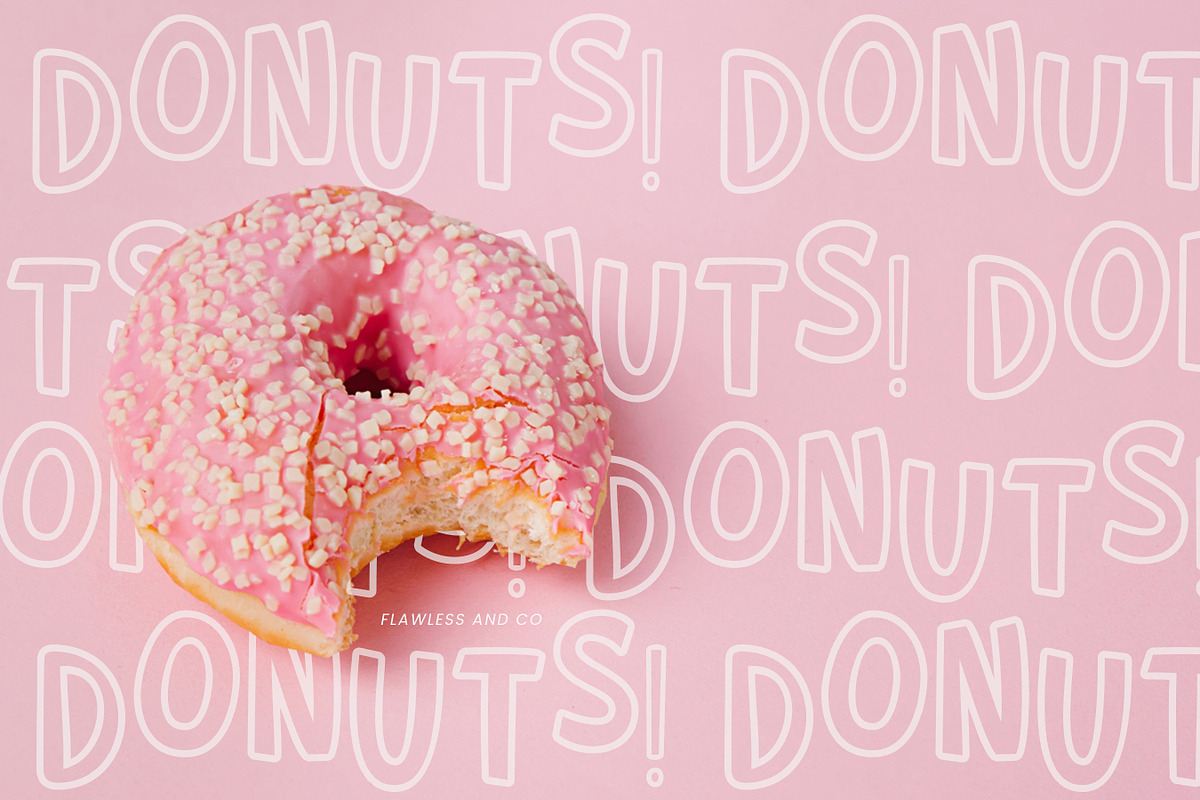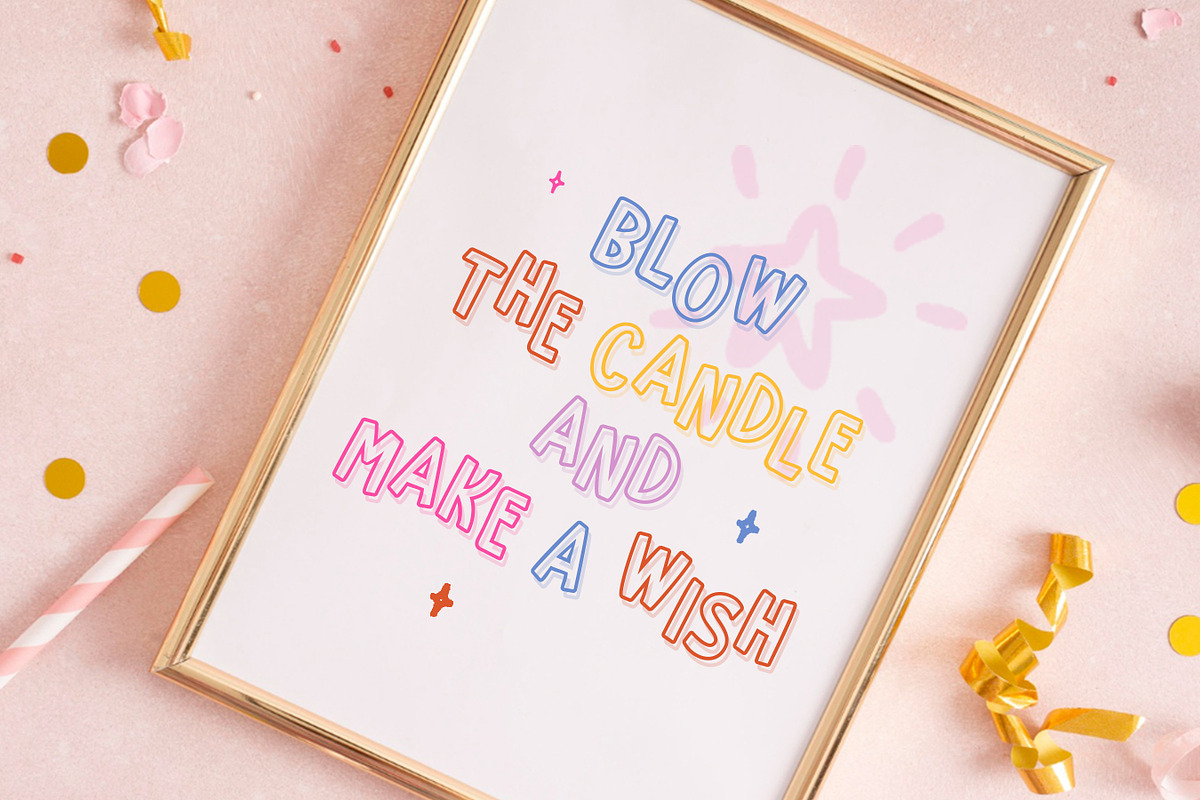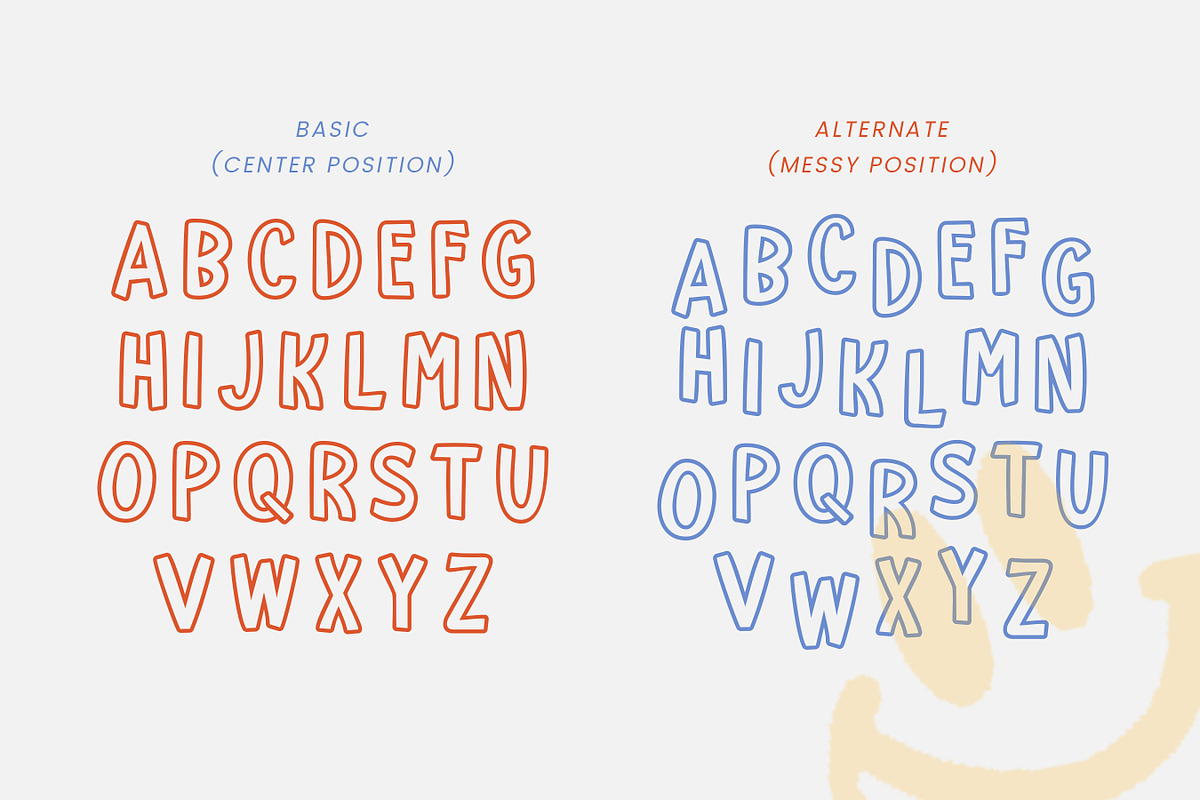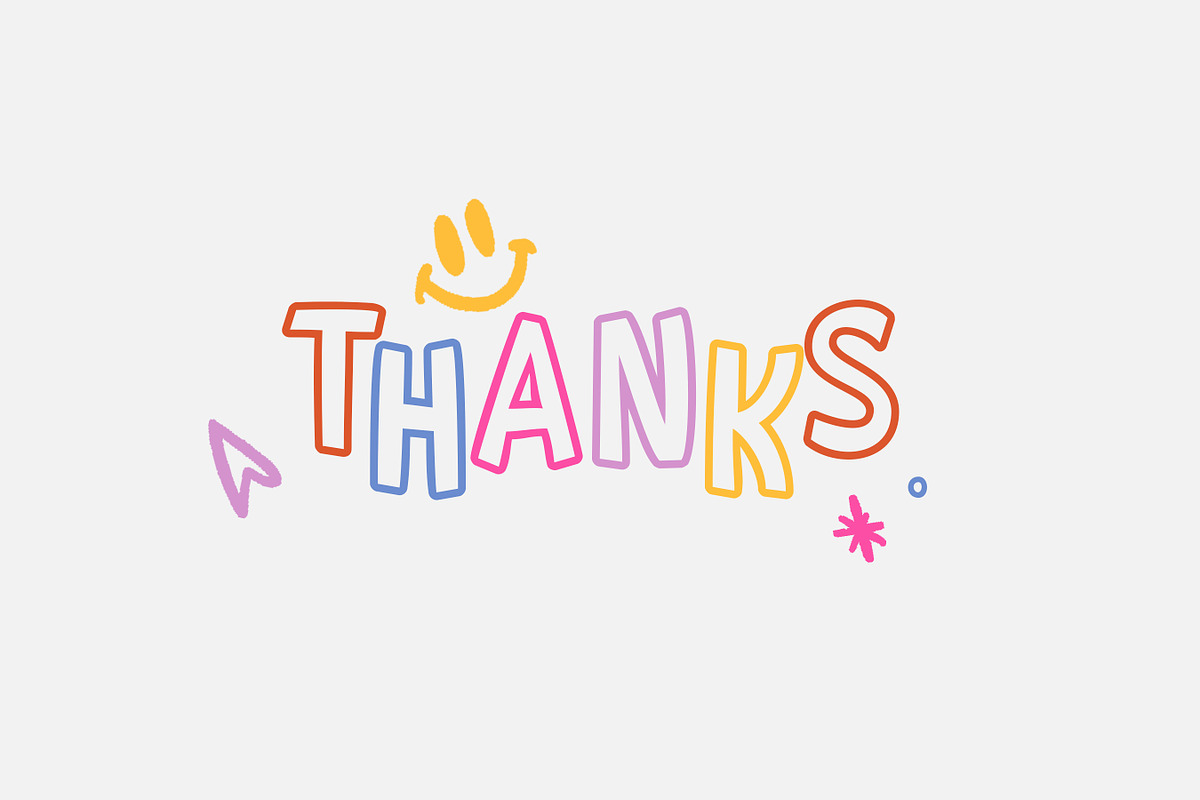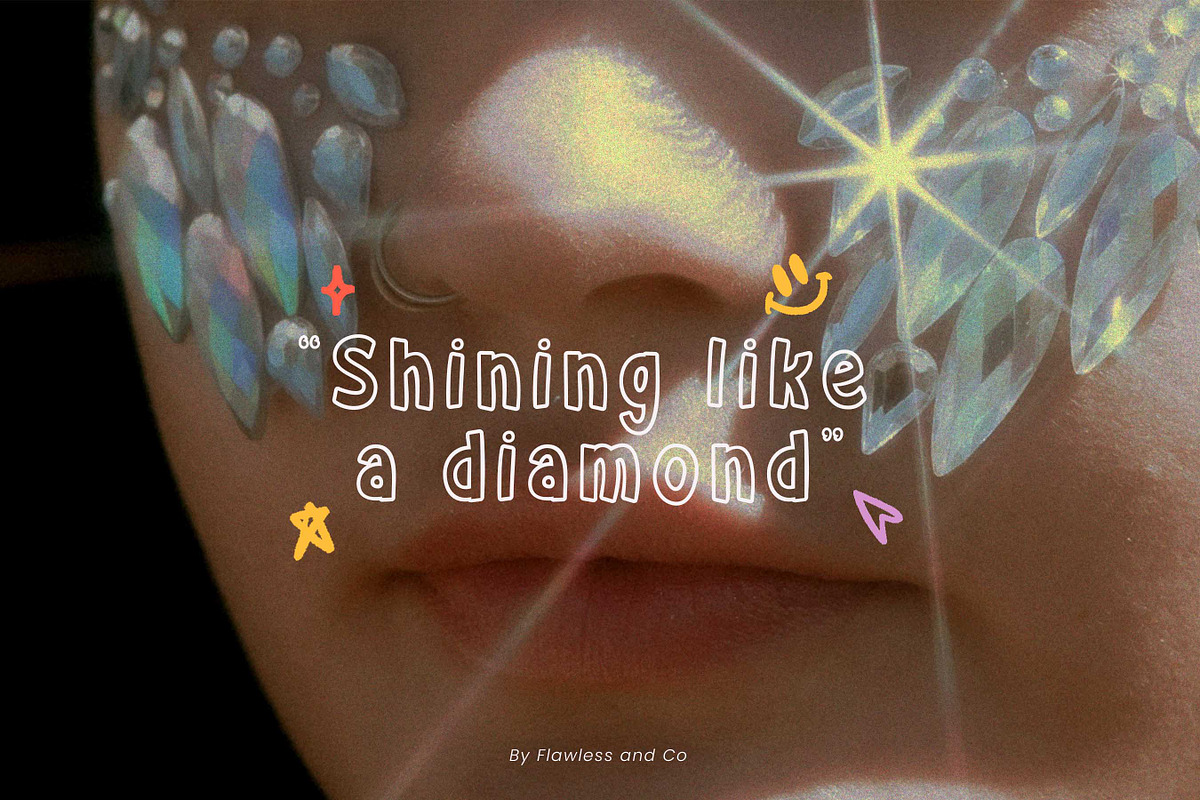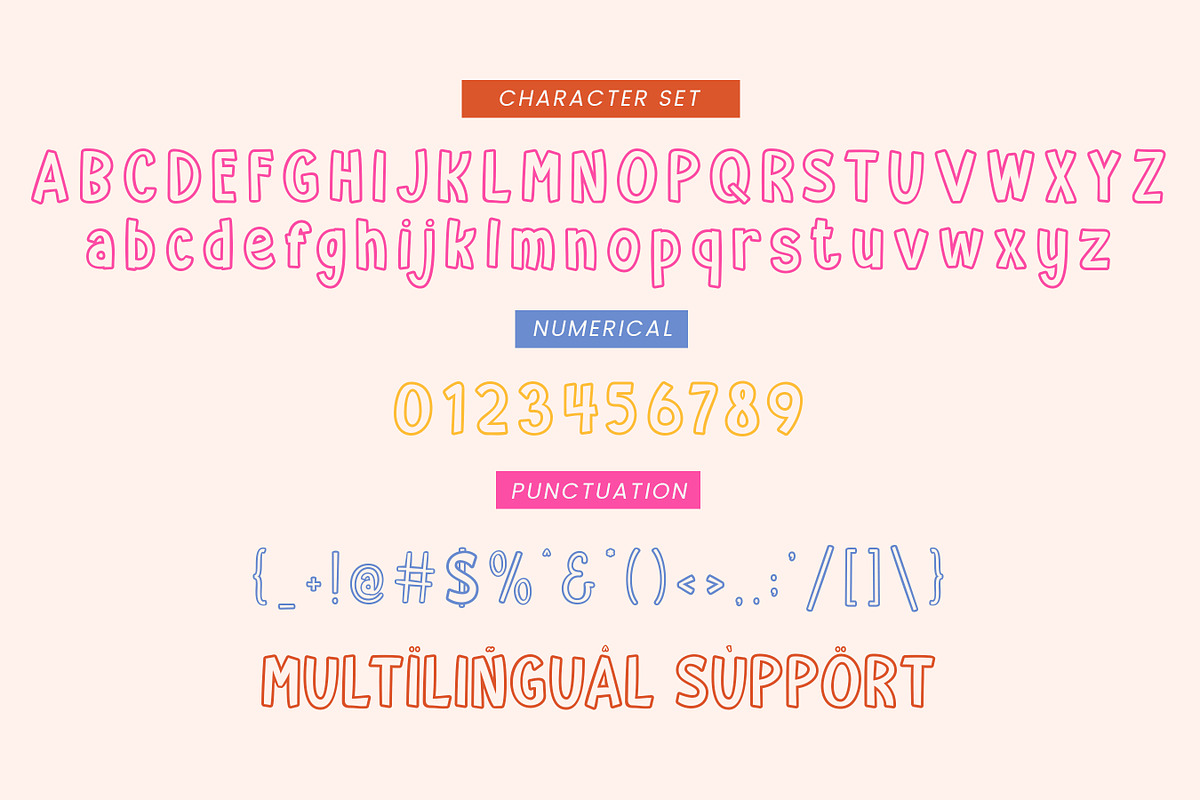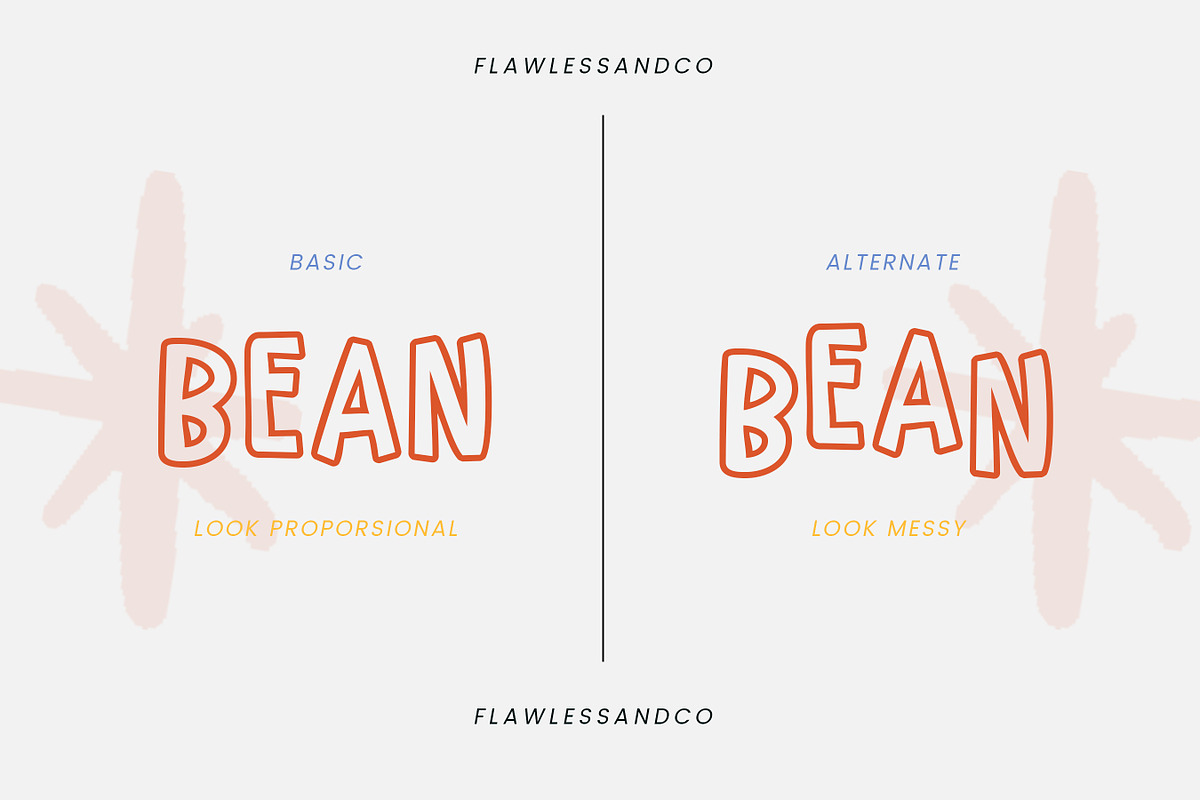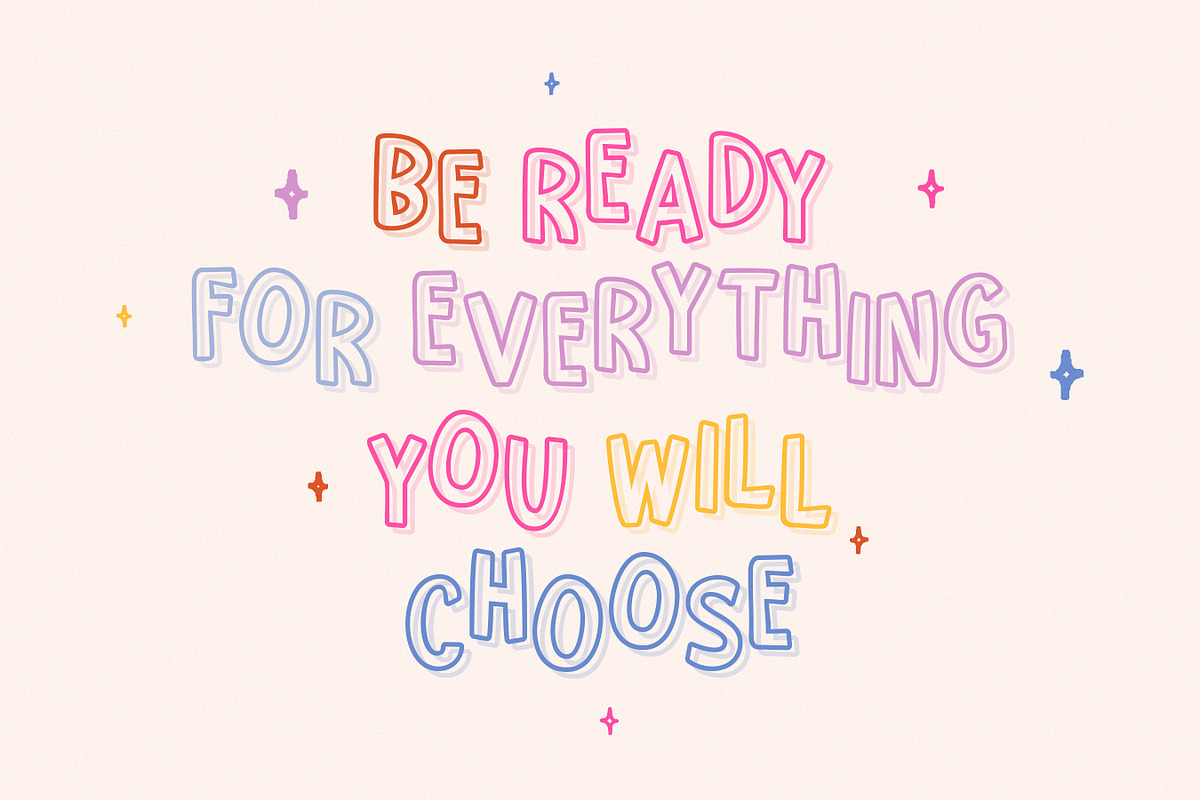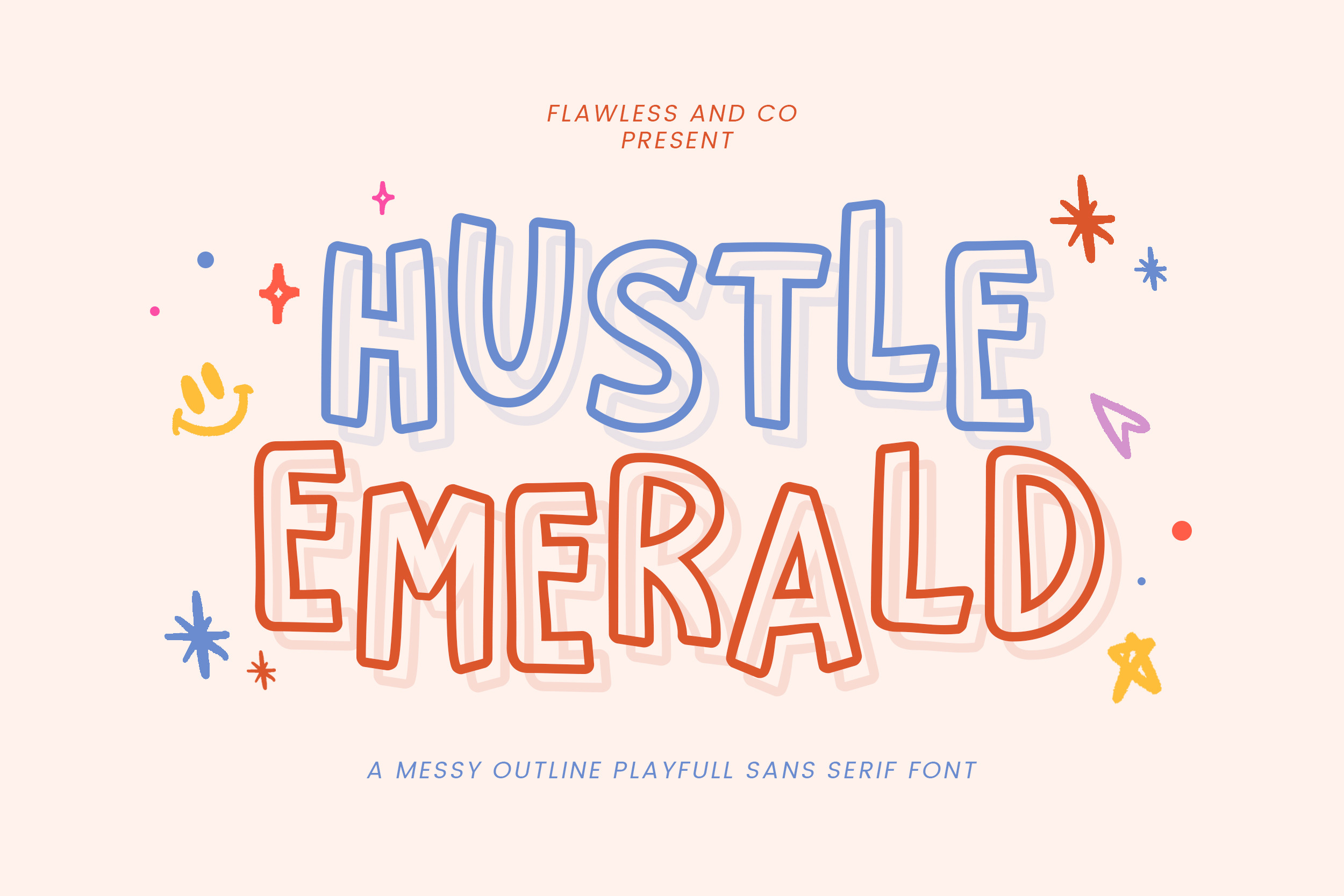
Hustled Emerald - Messy Outline Font
Hustled Emerald is a messy outline playful sans serif font that brings a fun and energetic vibe to your designs. With its hand-drawn aesthetic and unique character, this font is suitable for children’s books, comic titles, creative branding, posters, social media graphics, and playful packaging. Add a touch of whimsical charm to your projects with Hustled Emerald!
Multilingual Uppercase alphabet A-Z Lowercase alphabet a-z Numbers 0-9 Some punctuation